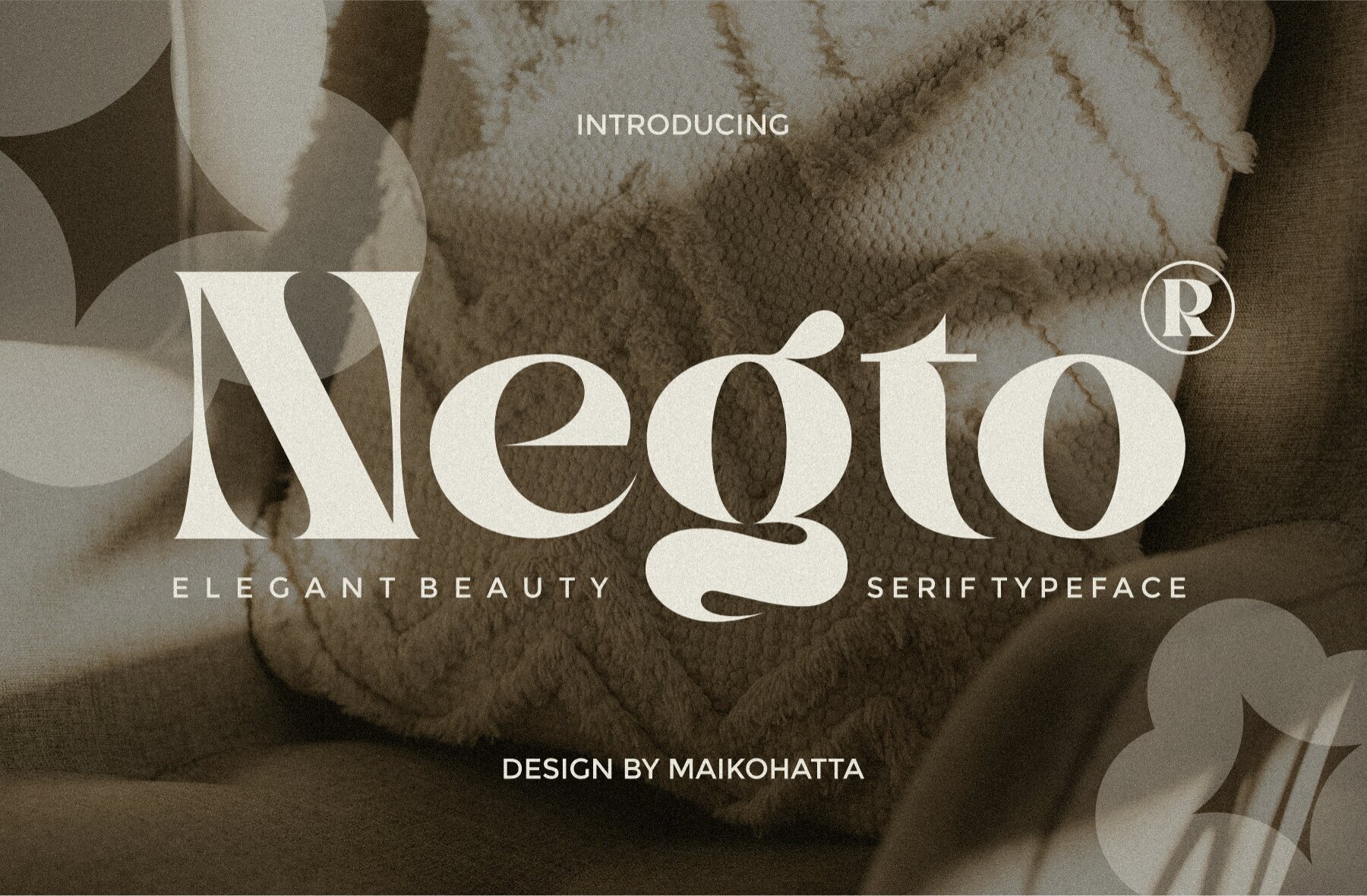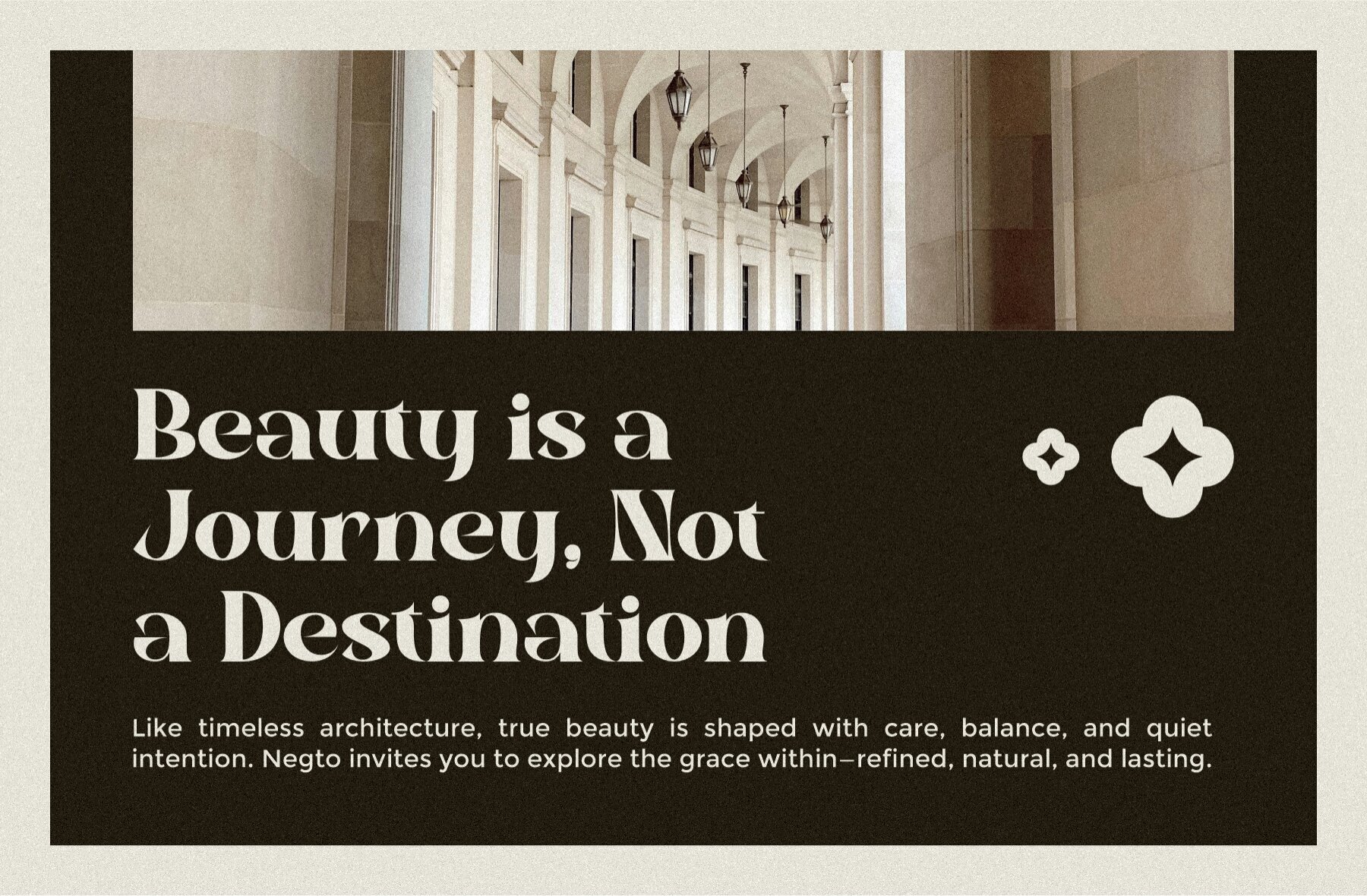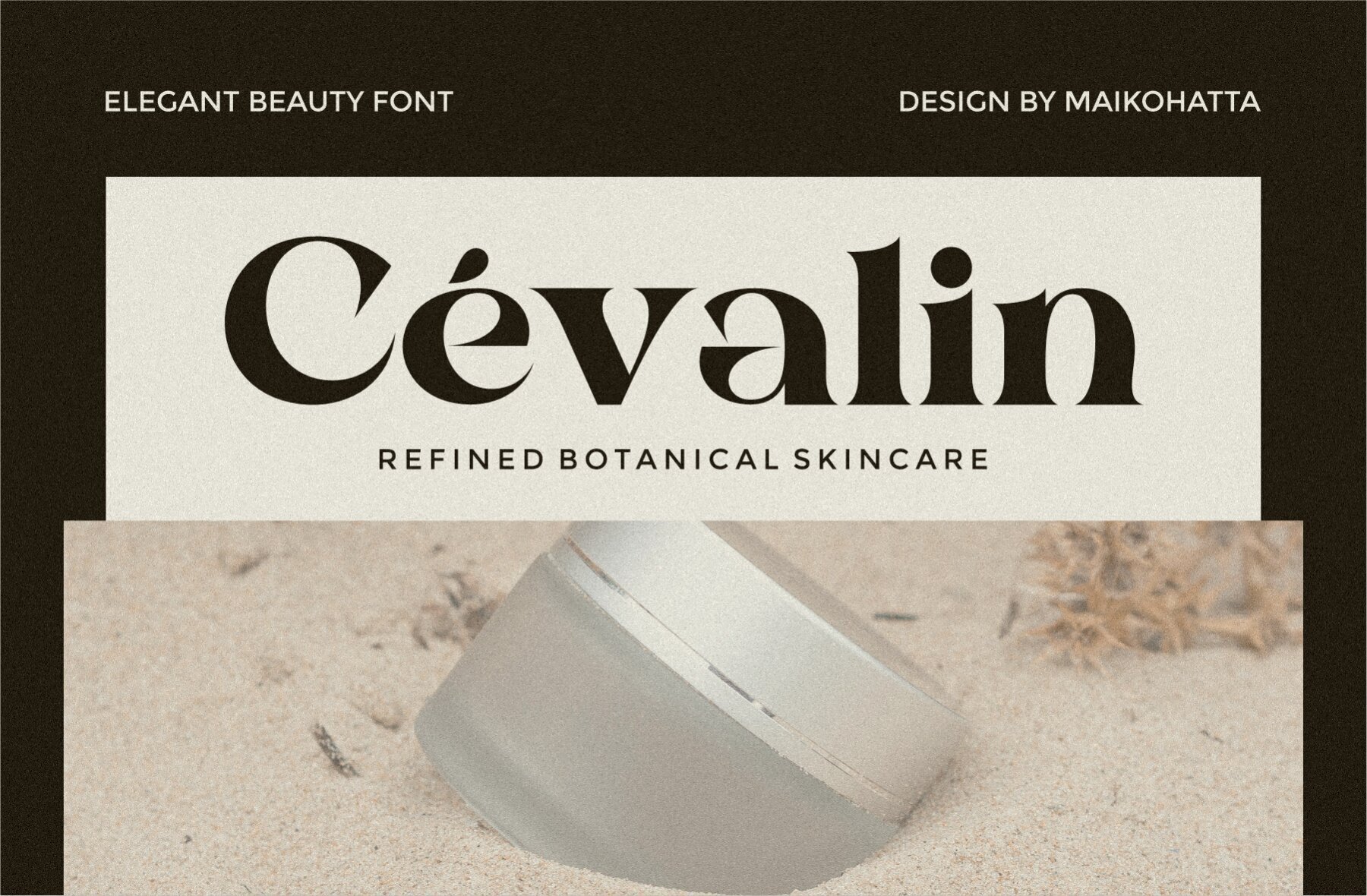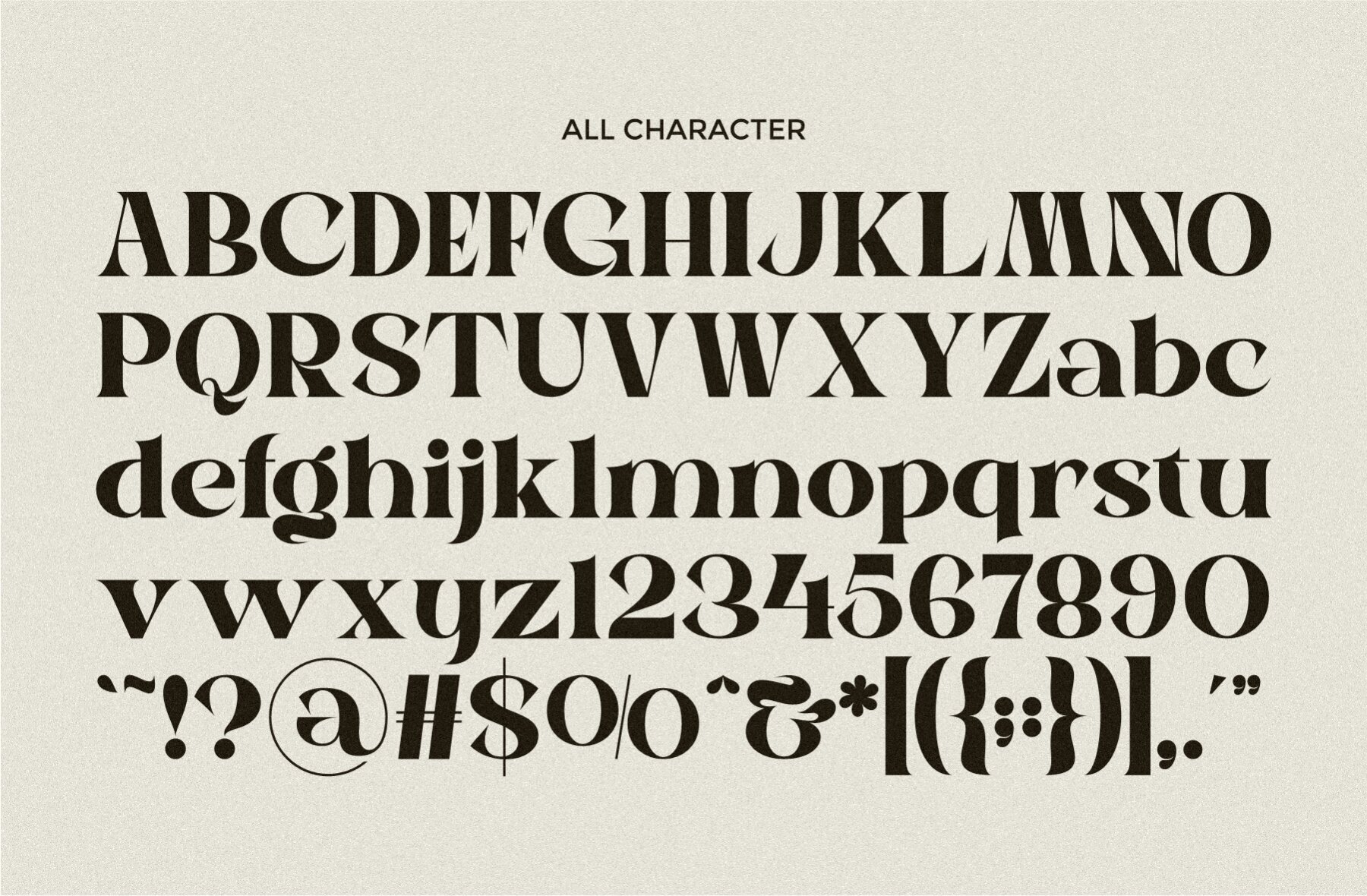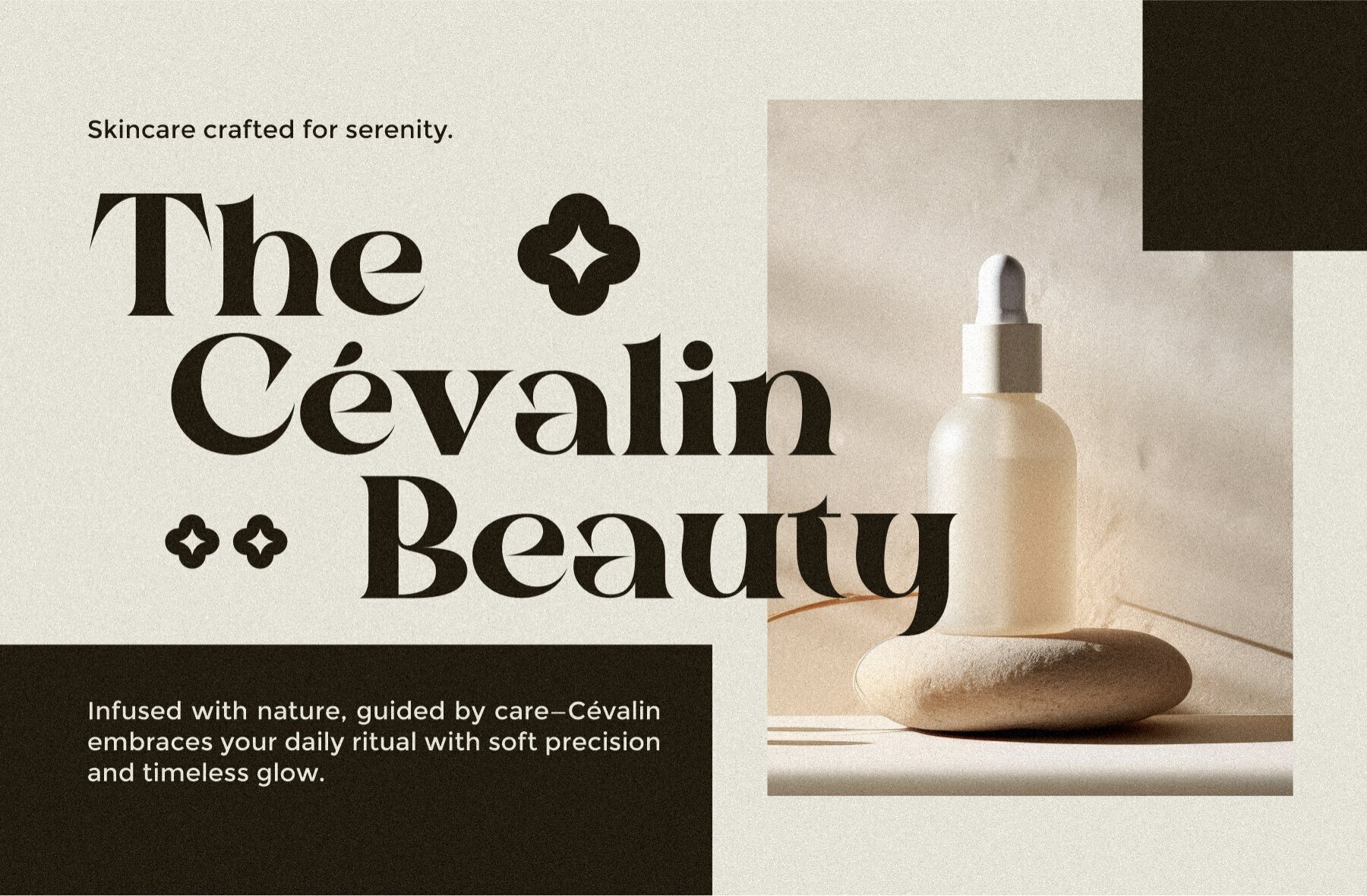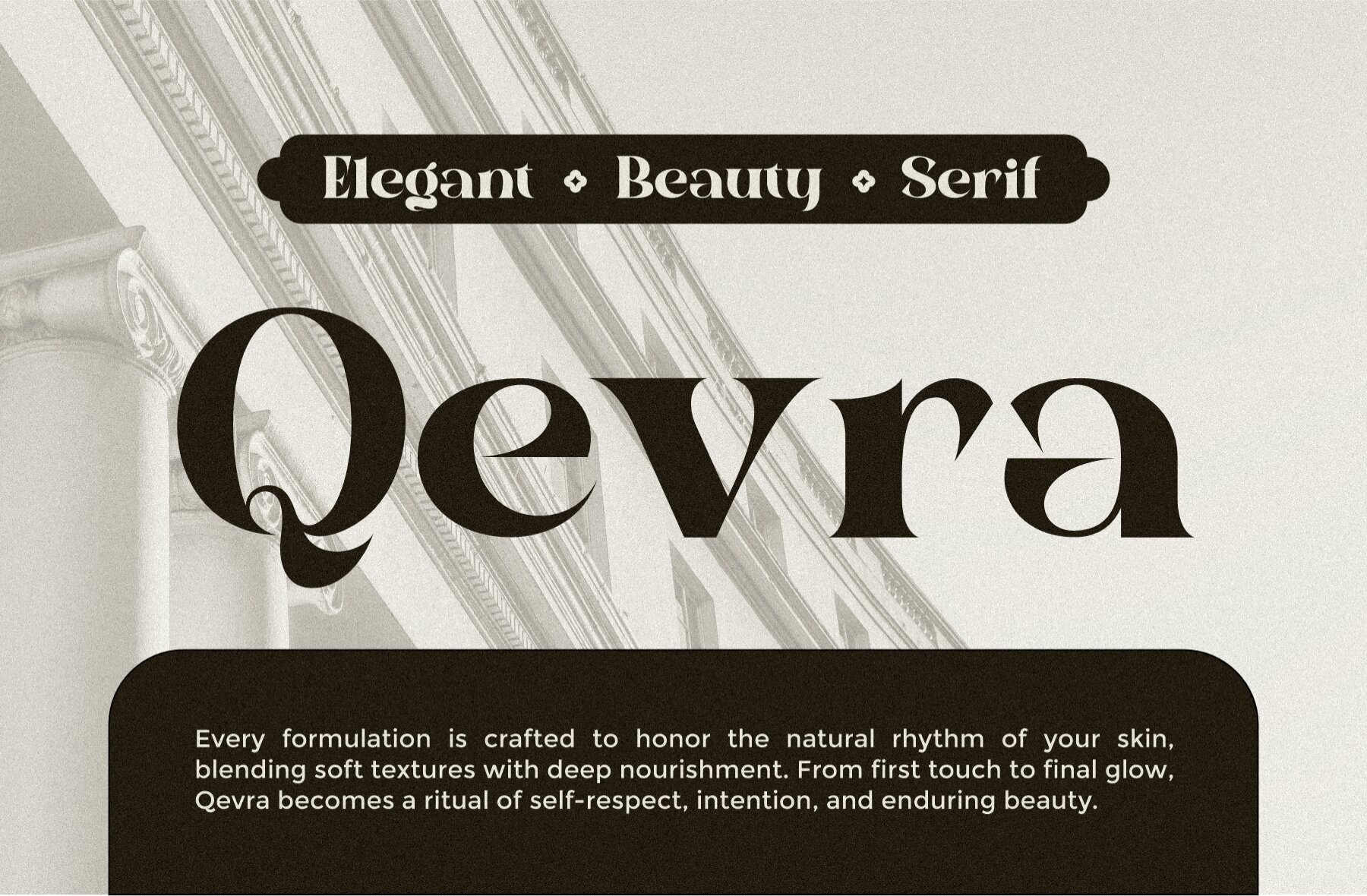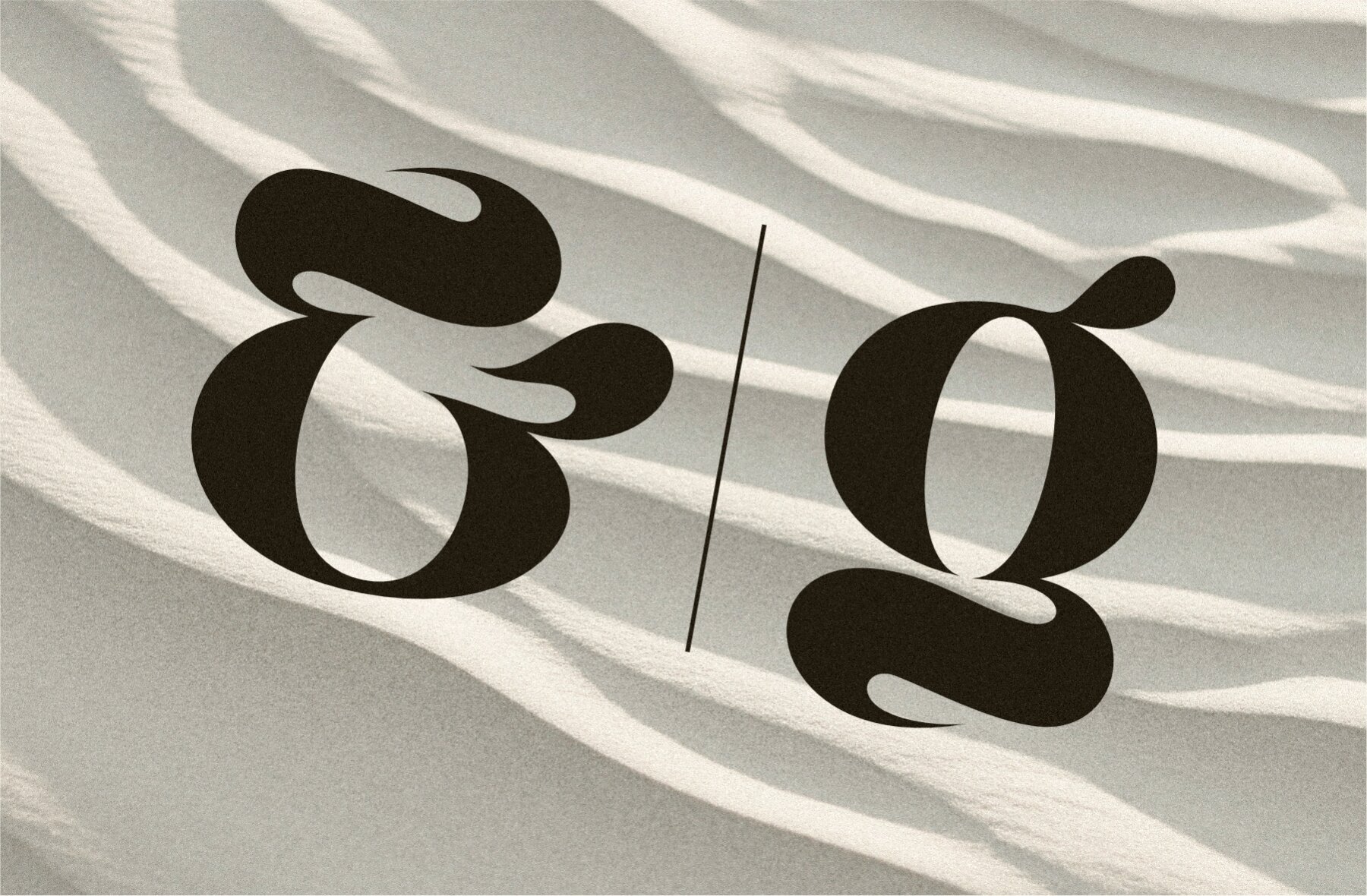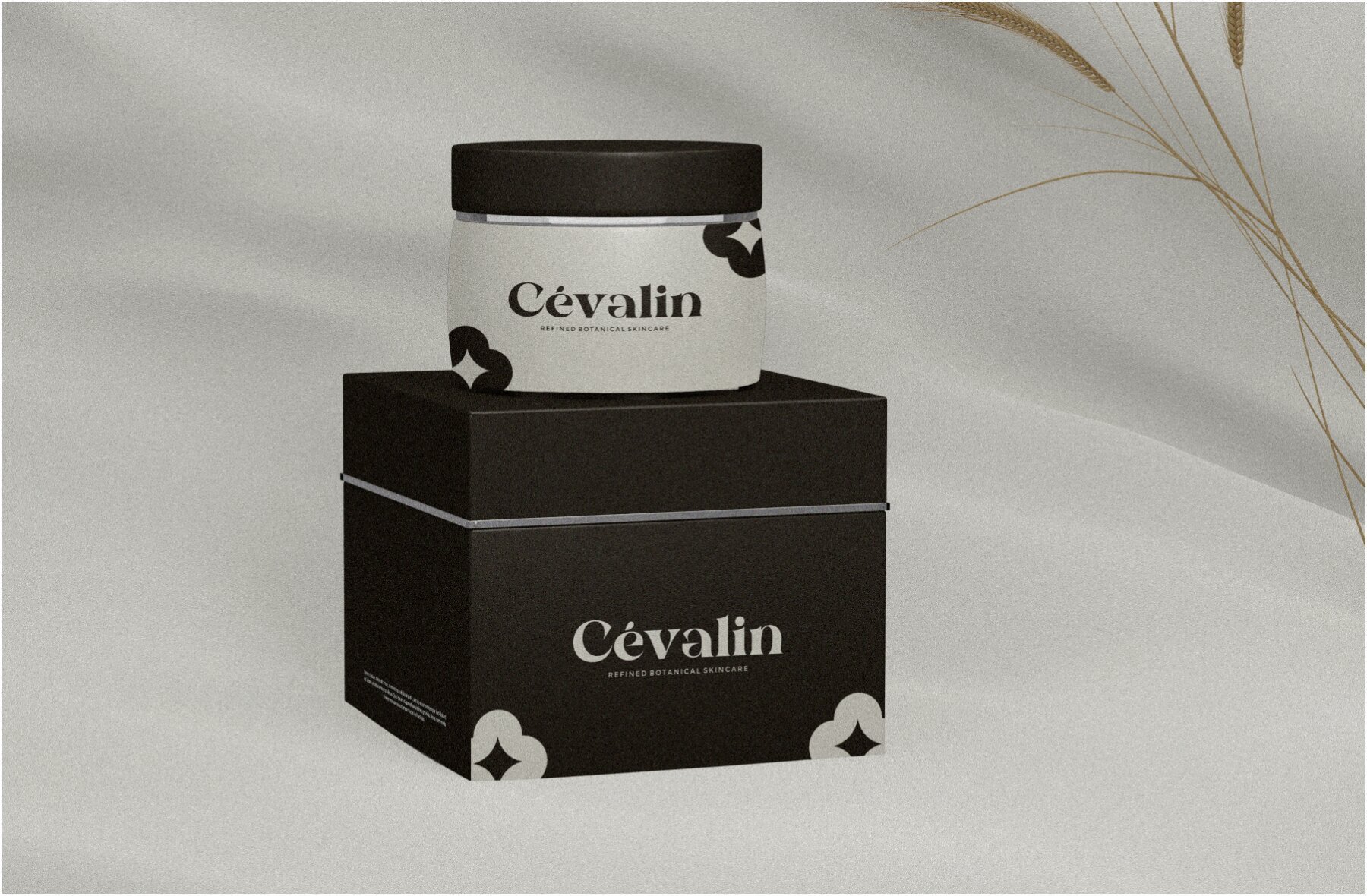
Negto Font
Negto Regular
Negto Elegant Serif Typeface imbues your projects with sophistication and a timeless style. Its clean lines and balanced shapes ensure readability while maintaining an elegant presence. Perfect for branding, editorial work, packaging, or any design that requires a classic yet fresh appearance. This serif font exemplifies professionalism and style. Its clear lettering ensures your message resonates with ease. Whether you're crafting business cards, posters, or website headings, Negto provides a polished look that captivates.Negto Elegant Serif: Timeless Sophistication